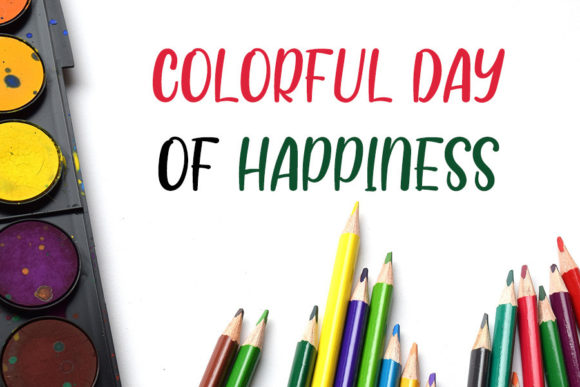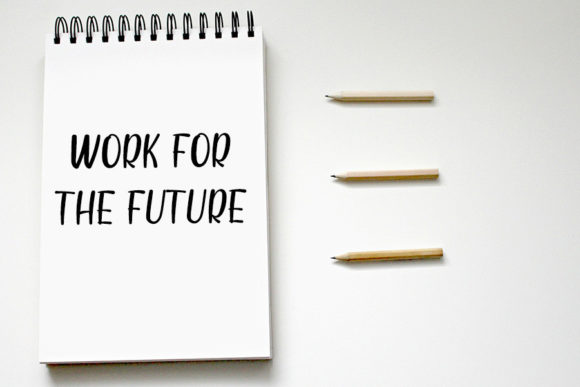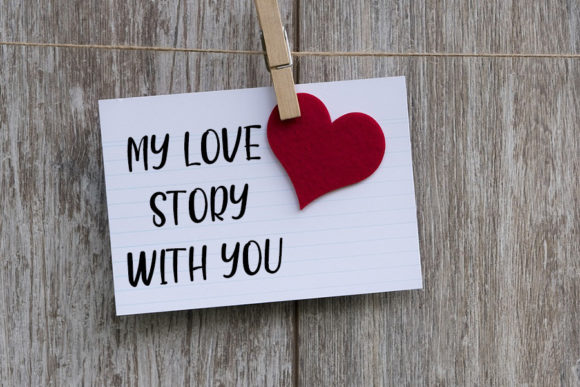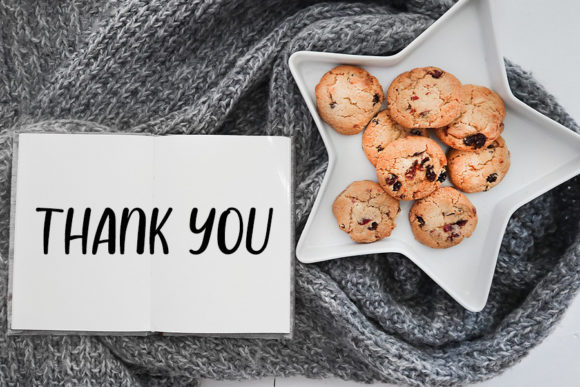
Hands Cookies Font
About Hands Cookies Font
Hands Cookies is a playful and smart-looking handwritten font. It is the ideal choice for creating eye-catching logos, branding, and quotes. Every letter has a unique and friendly touch, which will make your design come alive!